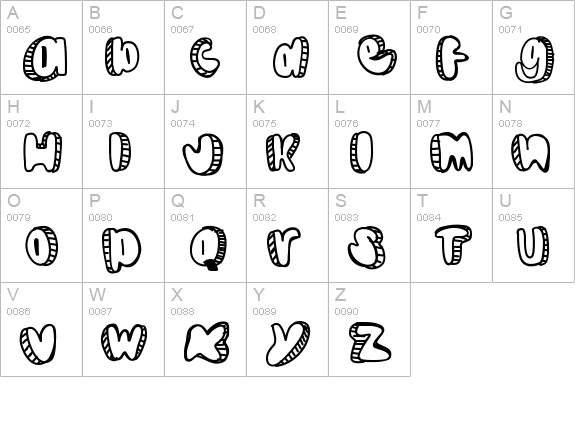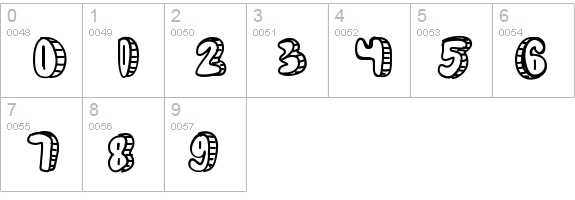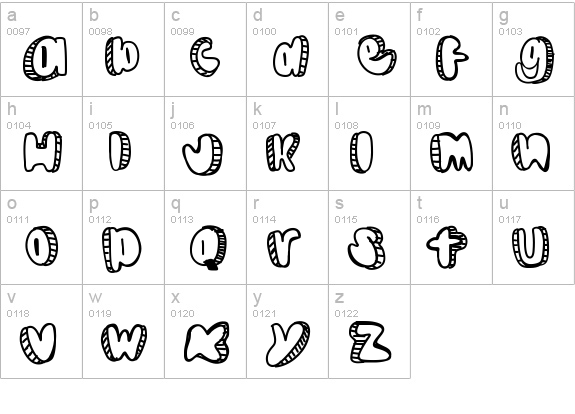
Doodle Font Details
Introducing Doodle Font, a whimsical and playful typeface that is sure to add a touch of creativity to any project. With its charming hand-drawn style, Doodle Font exudes a sense of joy and lightheartedness that will instantly captivate your audience. This delightful font is perfect for a variety of design purposes, whether you're creating eye-catching posters, designing captivating social media graphics, or adding a unique flair to your personal blog. Its quirky and irregular letterforms add a sense of spontaneity and personality to your text, making each word feel like a handcrafted masterpiece. But what makes Doodle Font even more incredible is the fact that it is completely free! That's right, this amazing font is freely available to download at FontsMarket.com. Now you can enhance your designs without breaking the bank. Whether you're a professional graphic designer looking for a fun and versatile typeface or an aspiring artist wanting to add a touch of whimsy to your creations, Doodle Font is the perfect choice. Download it for free today at FontsMarket.com and let your imagination run wild with this enchanting and playful font.